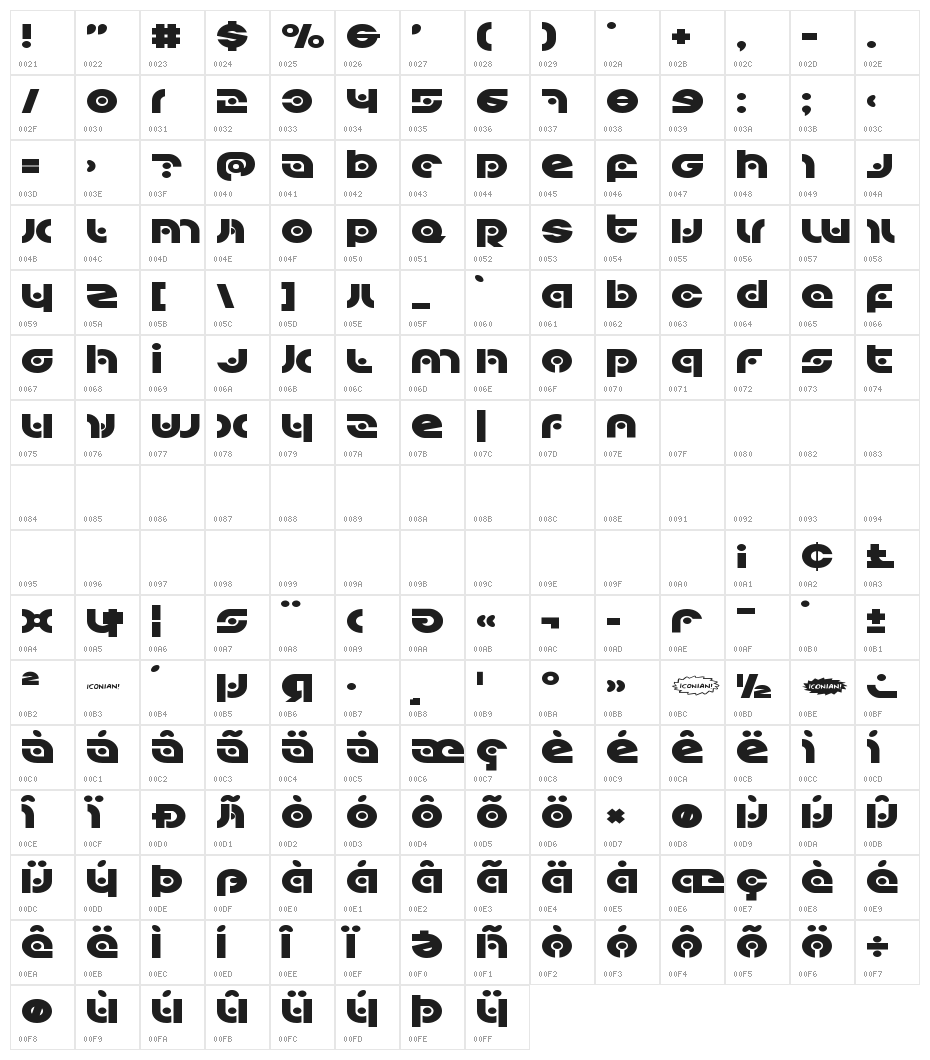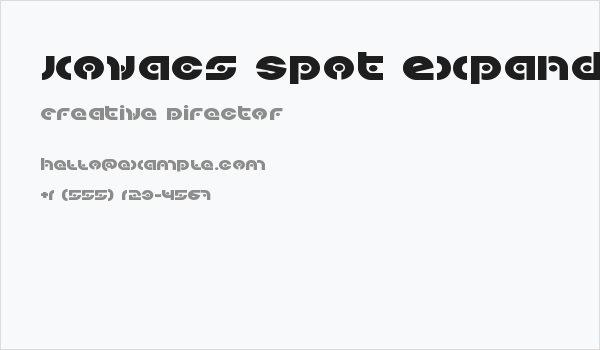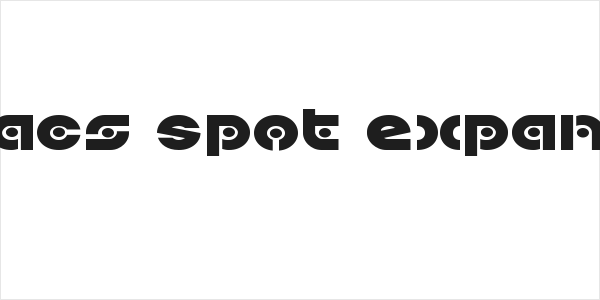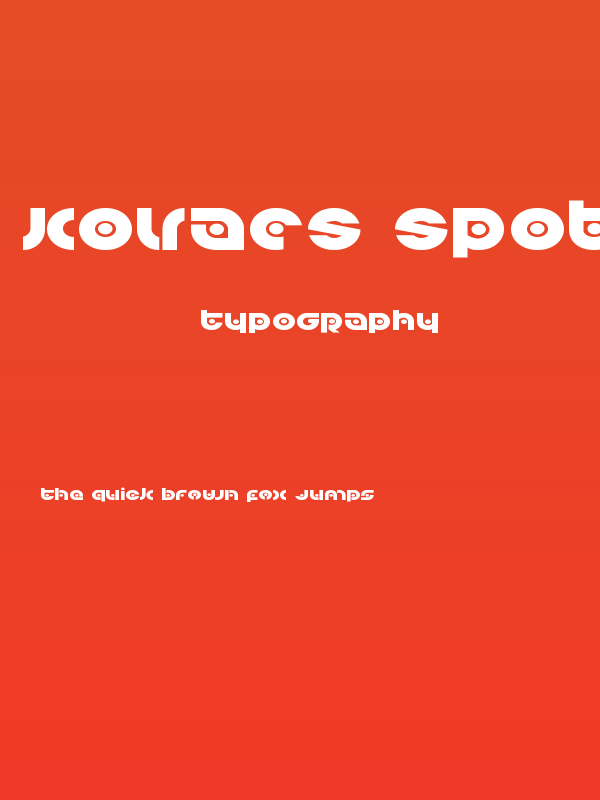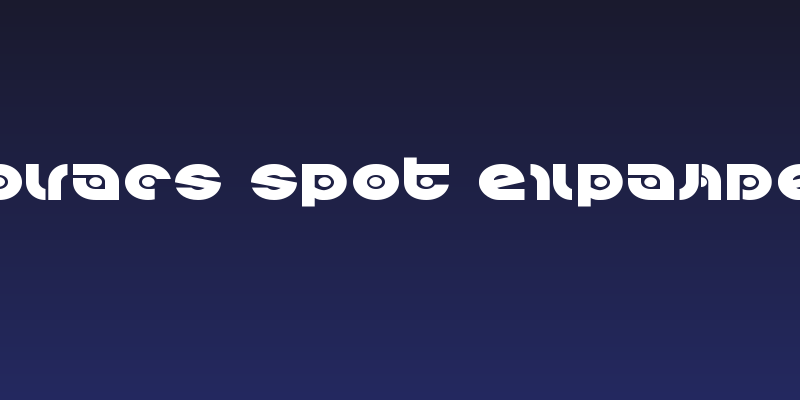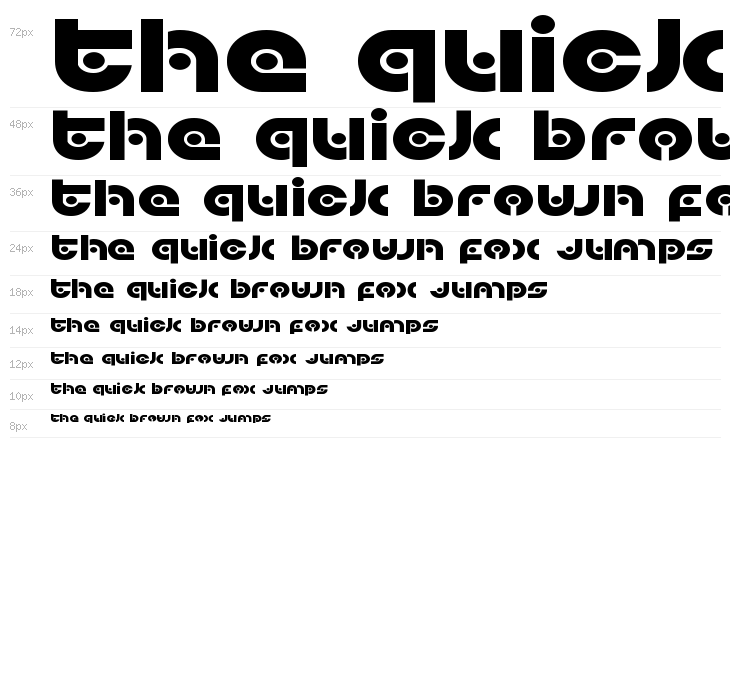
Kovacs Spot Expanded Font
Kovacs Spot Expanded Description
This font features a bold and geometric design, characterized by its distinctively rounded and blocky letterforms. The characters are crafted with a futuristic aesthetic, incorporating circular and semi-circular shapes that create a sense of movement and modernity. The uppercase and lowercase letters maintain a consistent style, with the lowercase mirroring the uppercase in form and structure. Numbers and special characters are designed to match the overall theme, ensuring a cohesive appearance across all glyphs. The font's unique style makes it stand out, making it suitable for creative and bold design projects.